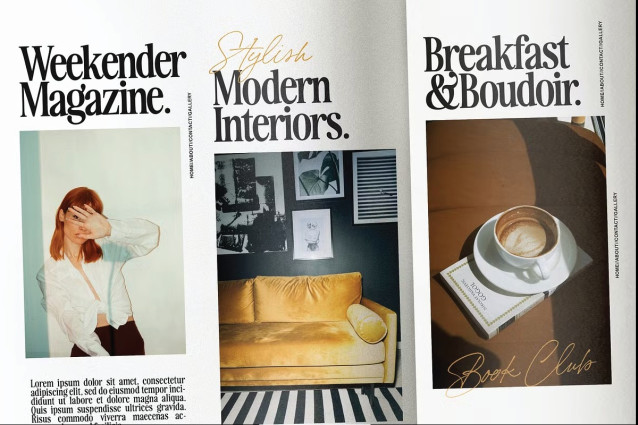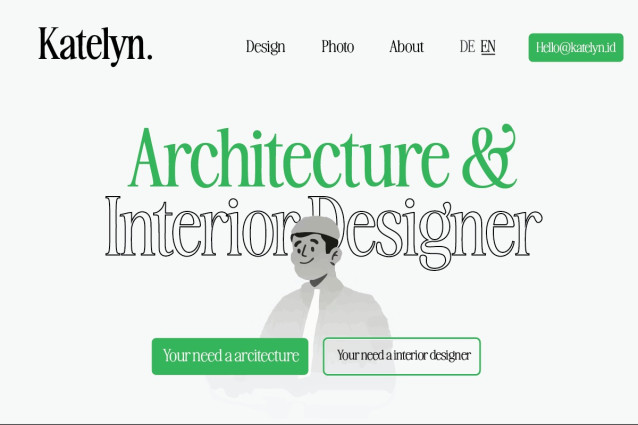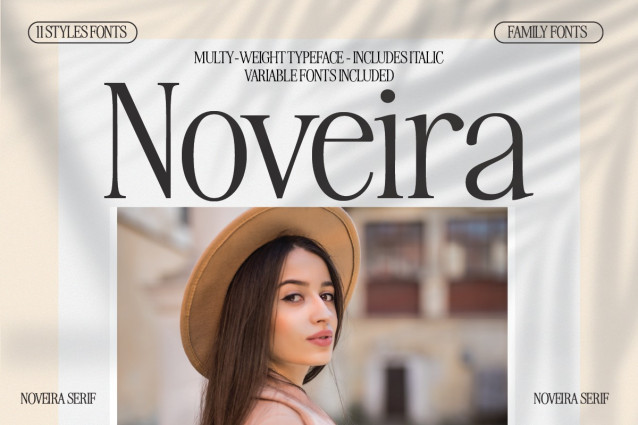
Noveira Font
Noveira Serif font. This font would be perfect for photography, watermarks, social media posts, advertisements, logos & branding, invitations, product design, labels, stationery, product packaging, special events, and other projects.